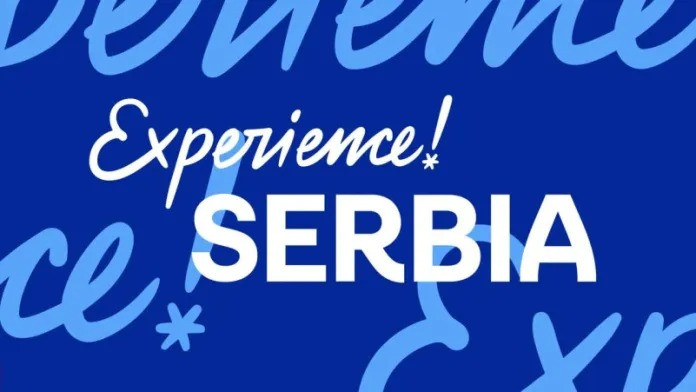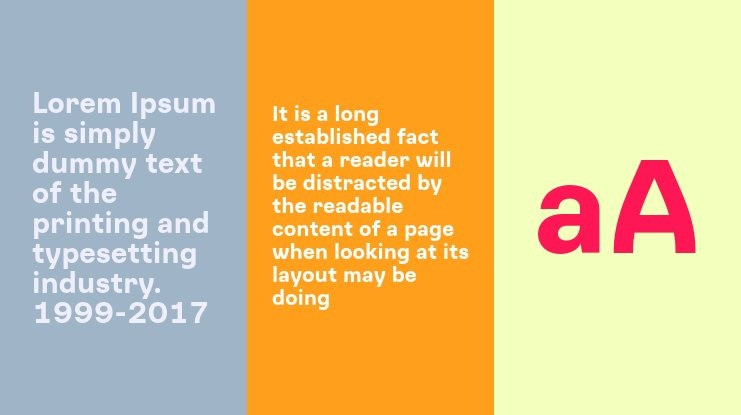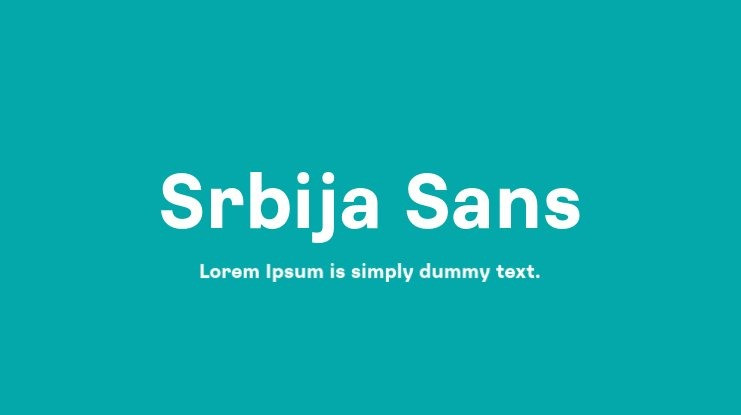
Srbija Sans Font
Srbija Sans Font is a custom typeface developed in cooperation with Metaklinika design studio. It is an integral part of the identity of the national tourist brand created for the National Tourist Organisation of Serbia.
It consists of clean letterforms in a bold weight, with no decorative or unnecessary details, allowing it to be easily applied to a variety of difficult backgrounds, such as photography. This is a contemporary sans serif with a geometric touch, which is a common aspect of grotesque fonts. That makes it a timeless and neutral font that can be used for all types of communication.
However, this typeface is much more than pure geometry. To avoid the appearance of coldness and restraint, it was given very subtle humanistic touches that made it appear more natural and spontaneous. Aside from the fact that round glyphs never represent a perfect circle, the influence of the hand may also be seen in the letters K, R, Q, K, M, ж, and a few others. As a result, the font looks warm and inviting. At the same time, these characteristics distinguish it from other comparable typefaces and make it recognizable. Furthermore, because they contribute to the diversity of letterforms, these features improve readability.
Srbija Sans is ideal for graphic design and any display use. Also, due to the aforementioned characteristics, as well as the high x-height, it could easily work for composing texts at very small sizes, in both print and web design.